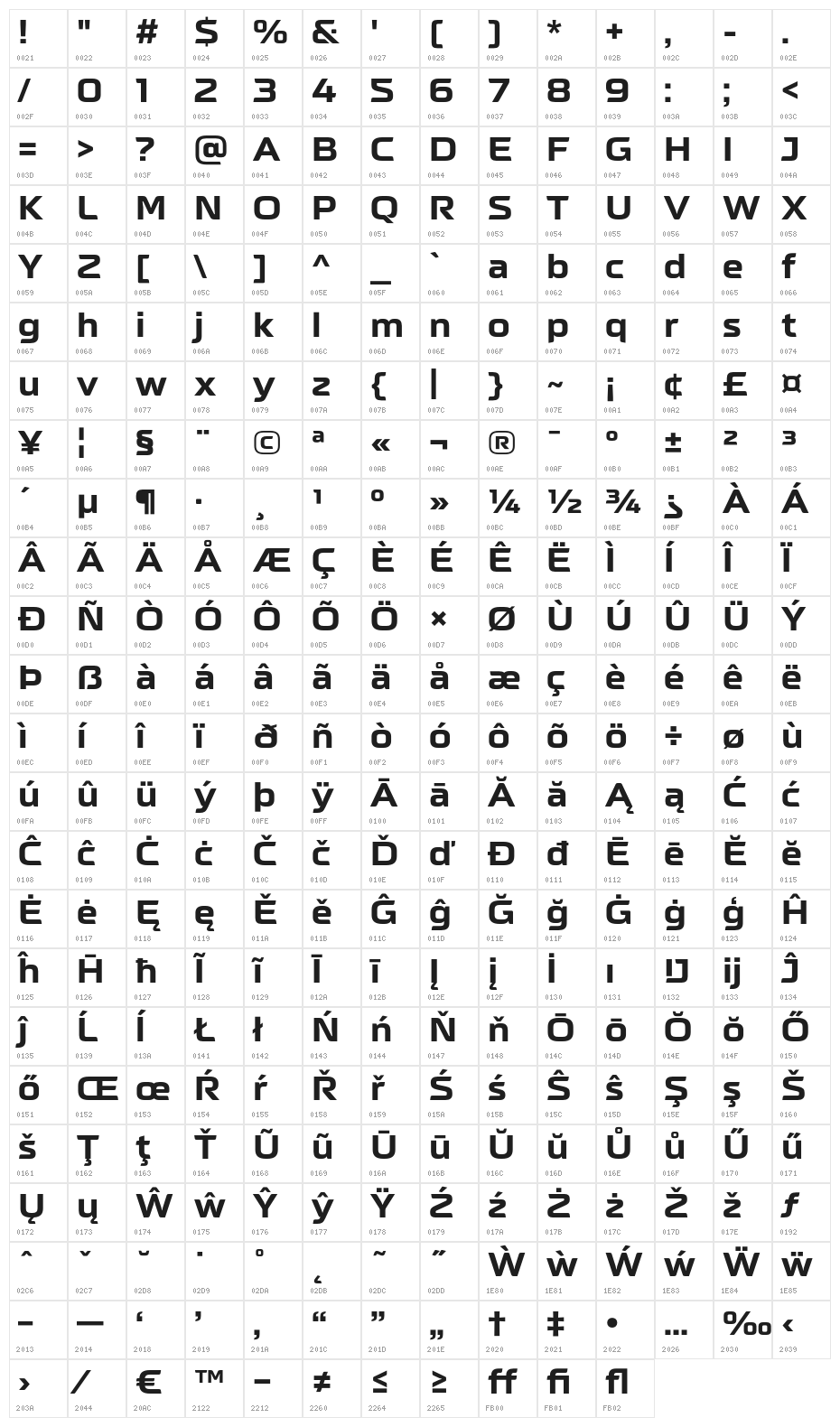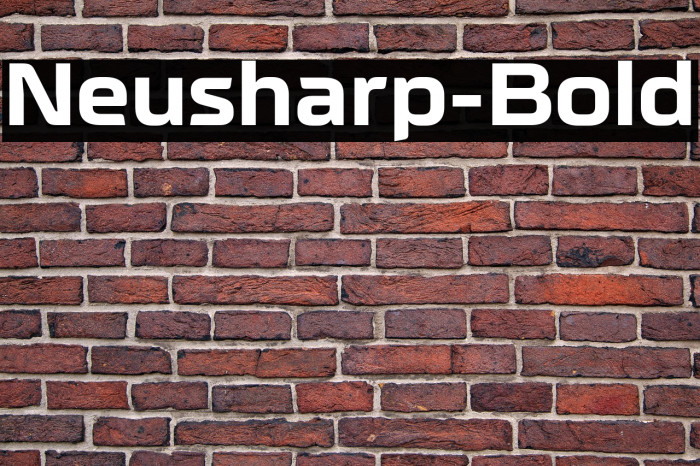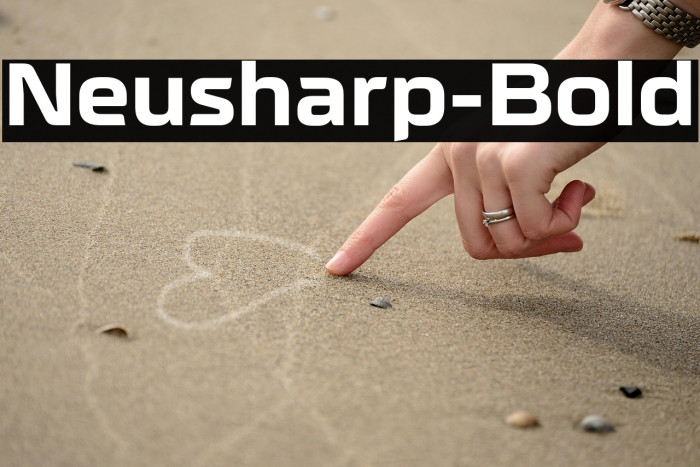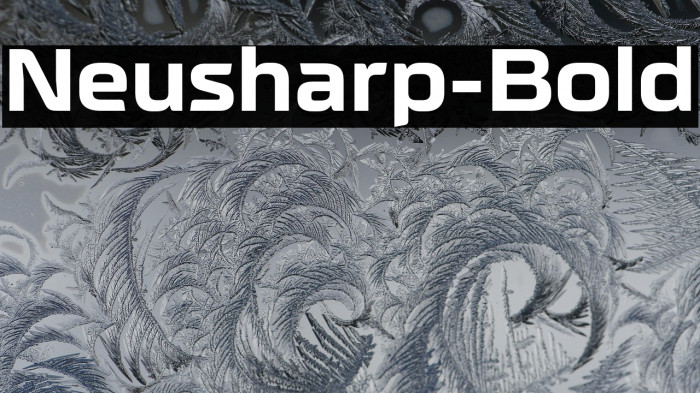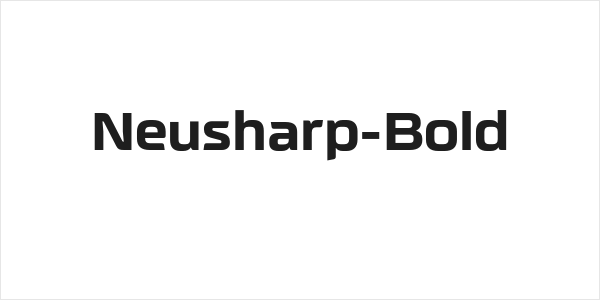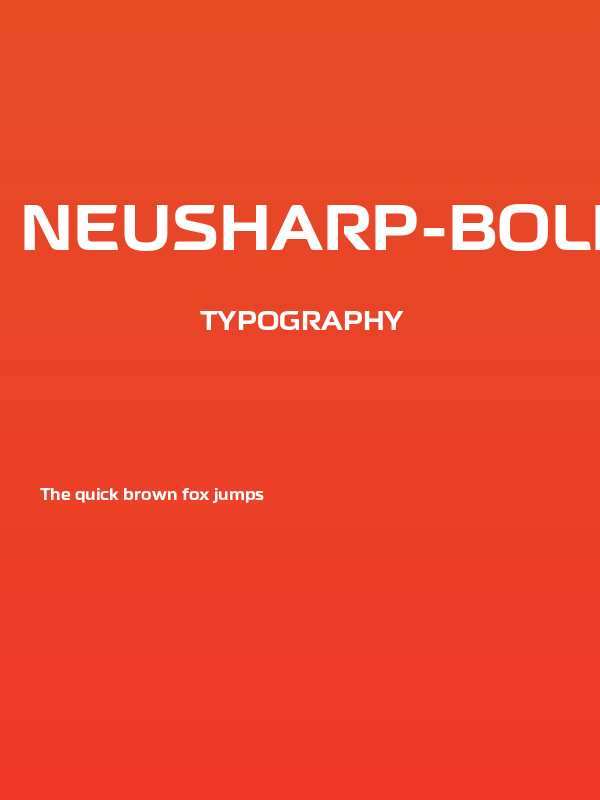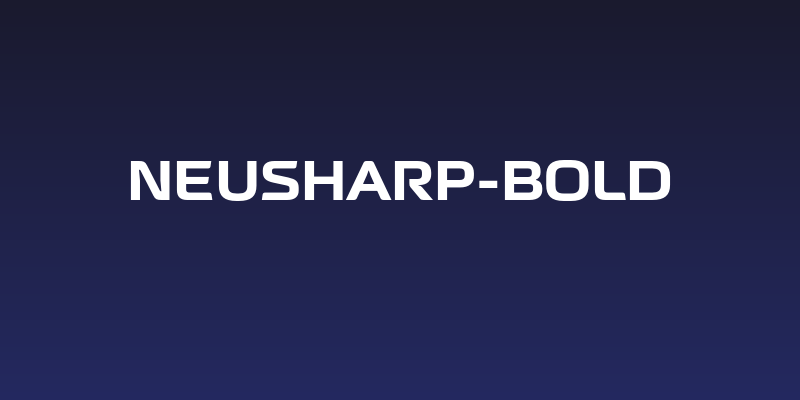
Neusharp-Bold Font
Neusharp-Bold Description
This font features a bold and modern design with clean, sharp edges and a geometric structure. The uppercase and lowercase letters maintain a consistent width, providing a uniform appearance. The numerals are distinct and easy to read, with a slightly futuristic feel. Special characters are well-defined, complementing the overall style. The font's design is suitable for digital and print media, offering versatility in various applications.
| Use Case | Headlines, Logos, Digital interfaces |
| Proposed Projects | Ideal for branding, headlines, posters, and digital interfaces where a modern and bold statement is needed. |